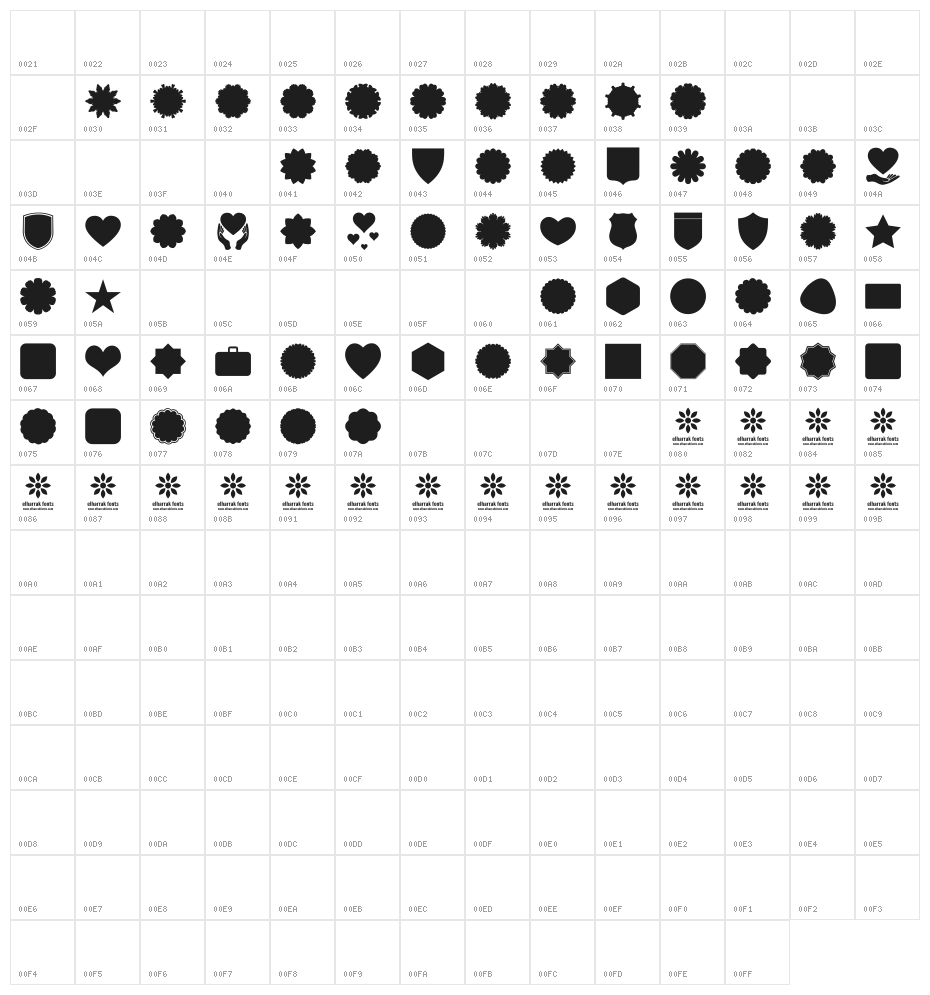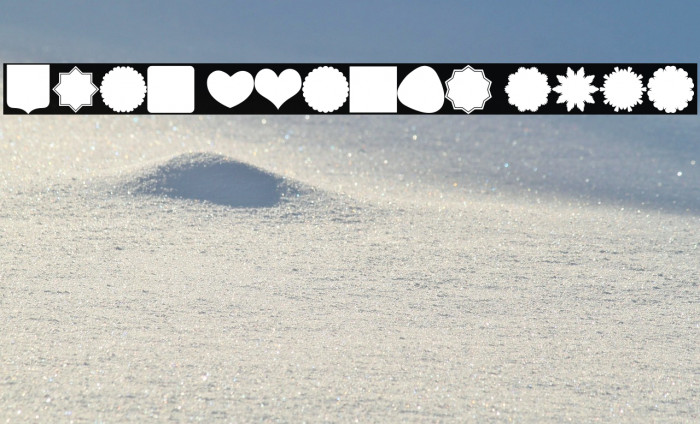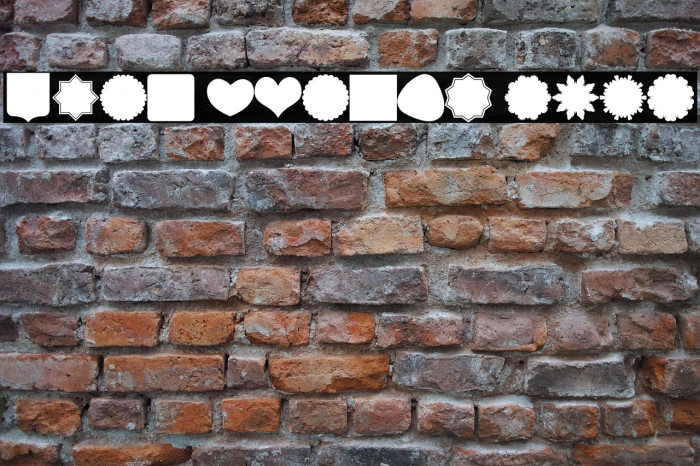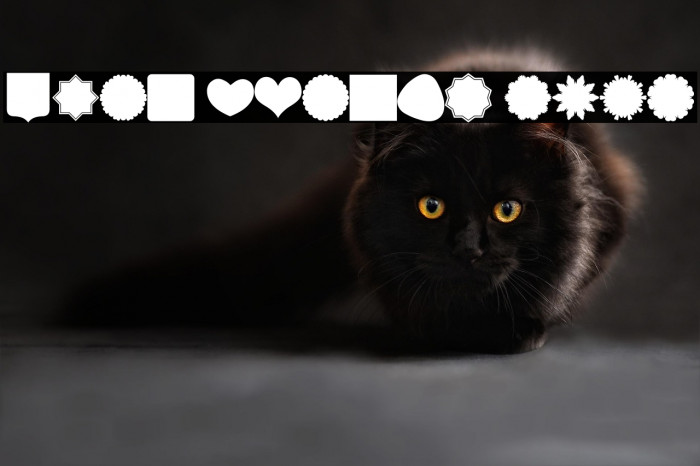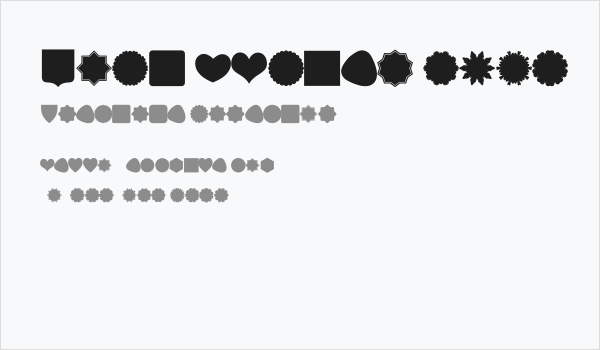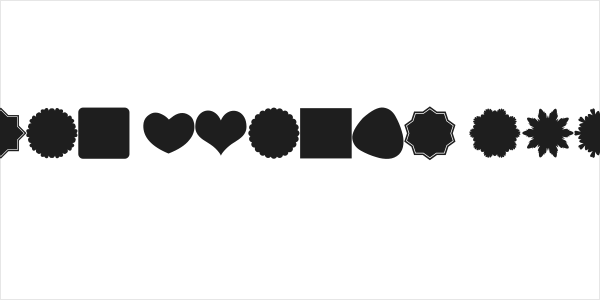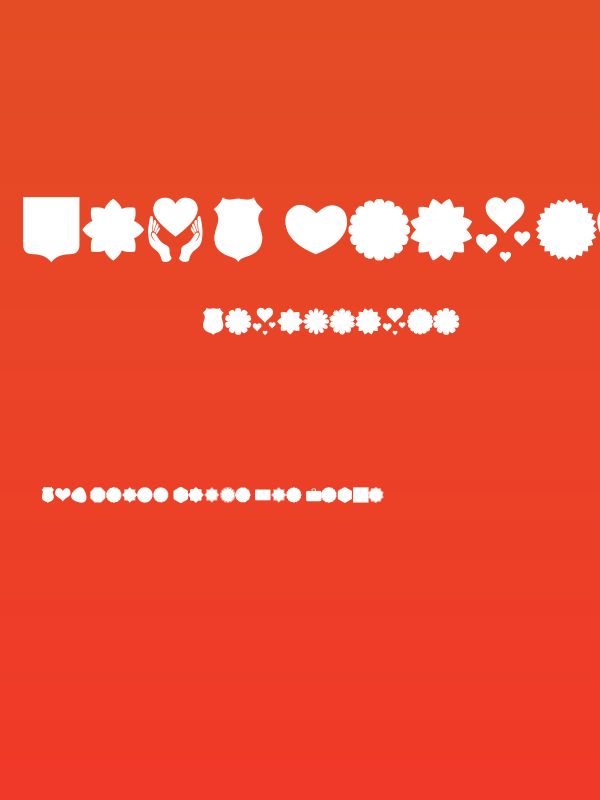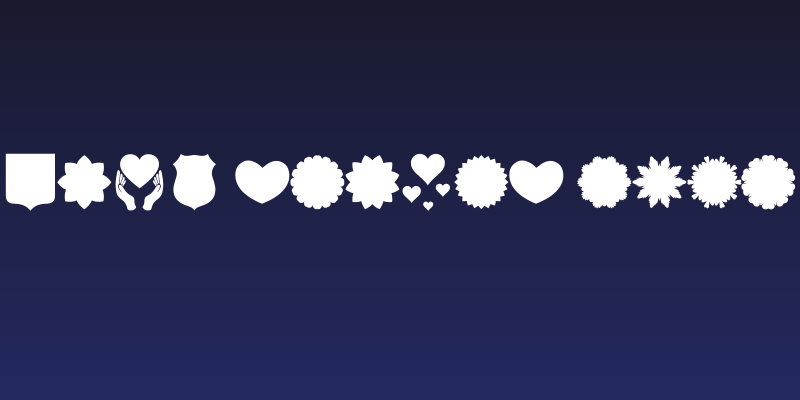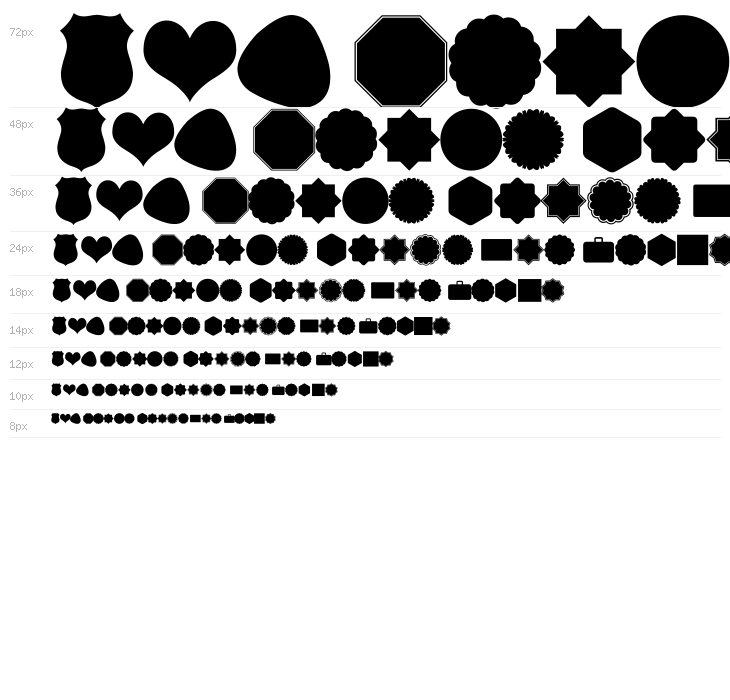
Font Shapes 2019 Font
Font Shapes 2019 Description
A collection of bold, solid black geometric and symbolic shapes including stars, shields, hearts, circles, squares, hexagons, and decorative badges, presented as glyphs rather than traditional alphanumeric characters.
| Use Case | Icons, badges, decorative elements, digital scrapbooking. |
| Proposed Projects | Stickers, badges, icons, infographics, scrapbooking, certificates, digital stamps. |